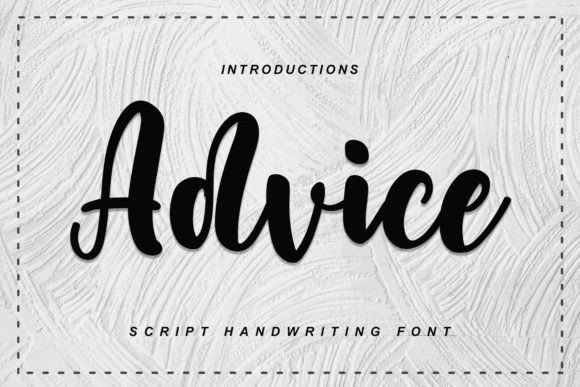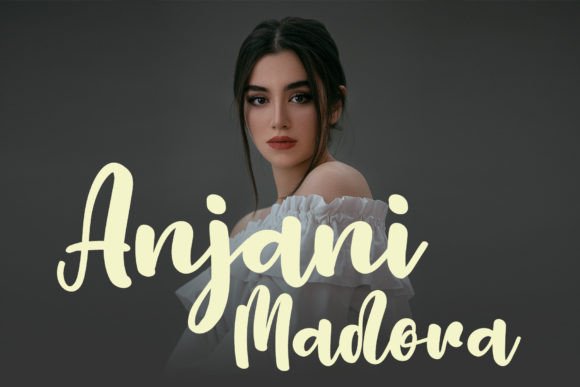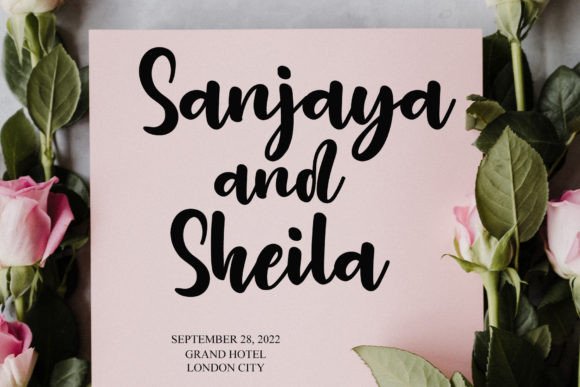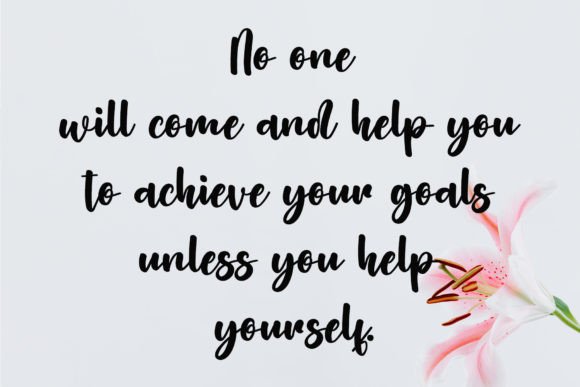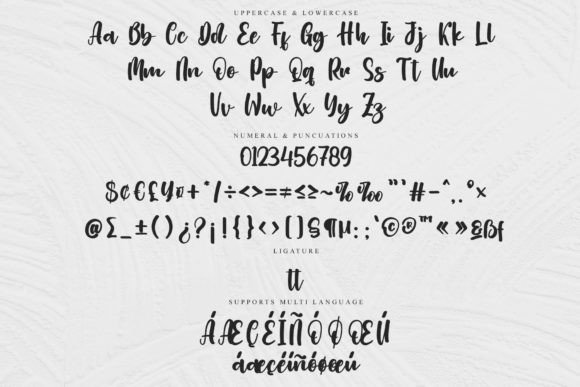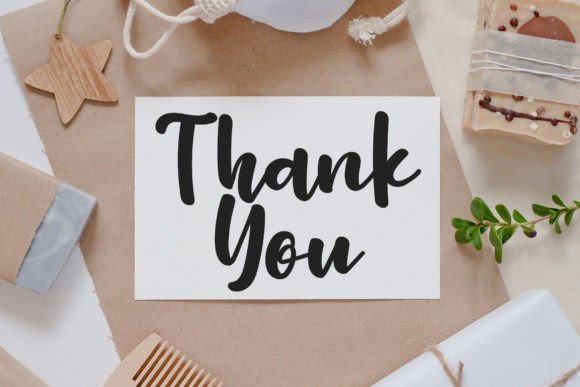
Advice Font
Introducing Fellow Font
The Fellow Font is a friendly handwriting typeface that exudes approachability and warmth. This font is well-suited for various design applications, including greeting cards, posters, social media graphics, and quotes on products such as mugs or shirts. Its charm lies in its ability to infuse a sense of friendliness and authenticity into your designs.
Why Choose Fellow?
• Approachability: The Fellow Font offers a handwritten style that adds a personal touch to your projects, making them more relatable and engaging for your audience.
• Versatility: Whether you’re creating heartfelt greeting cards or eye-catching posters, this font provides a versatile choice for conveying warmth.
Applications of Fellow Font
• Greeting Cards: Use this font to craft designs that connect with viewers through a sense of warmth and approachability.
• Social Media Graphics: Enhance your posts with visually engaging text that captures attention.
• Product Quotes: Perfect for adding personalized messages to mugs, shirts, and more.
The Impact of Using Fellow Font
The Fellow Font enhances your work by making it visually appealing and relatable. This font becomes a valuable asset for designers seeking to create designs that foster a sense of connection and friendliness with their audience. Its versatility ensures that your projects resonate with viewers in a friendly manner.
The Value It Brings
This typeface excels in adding approachability and warmth to various design projects. By choosing Fellow, you ensure your designs are not only engaging but also memorable and unique.
This font is also ideal for various creative projects beyond traditional uses. It can enhance digital designs with its friendly flair, making it suitable for websites, brochures, or mobile interfaces. The Fellow Font adapts well to different screen sizes while maintaining its charm. As design trends evolve, this font remains relevant due to its timeless appeal, balancing style with functionality effectively.